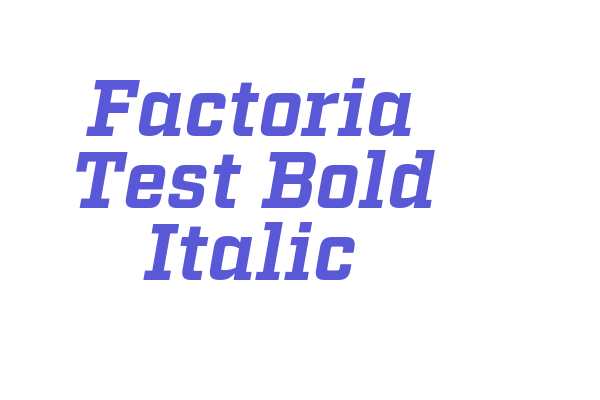
Factoria Test Bold Italic is a sleek and modern serif font designed by Mattox Shuler. With its bold and italic style, this font exudes confidence and sophistication. Ideal for creating eye-catching headlines, logos, and branding materials, Factoria Test Bold Italic is perfect for projects that require a strong and stylish typography.
Font Name: Factoria Test Bold Italic
Designer: Mattox Shuler
Font Family: Factoria Test Bold
Weight: Italic